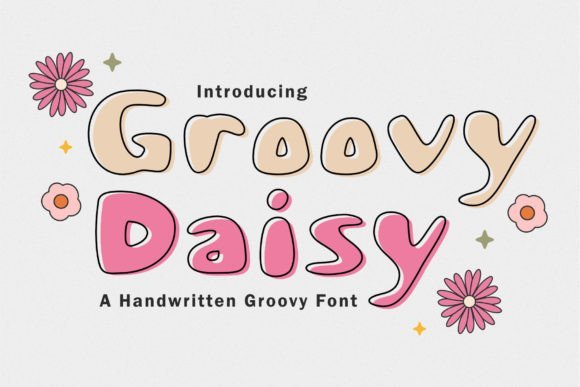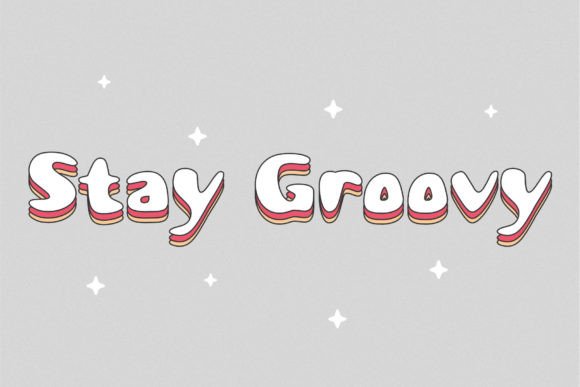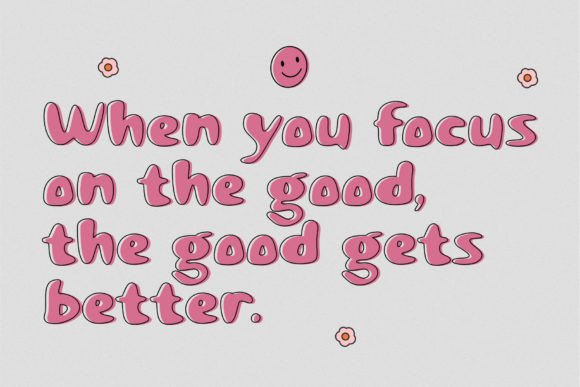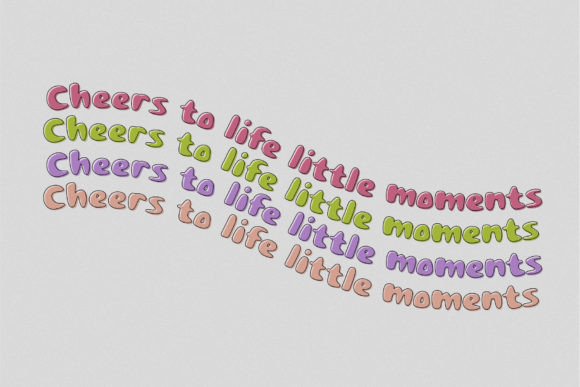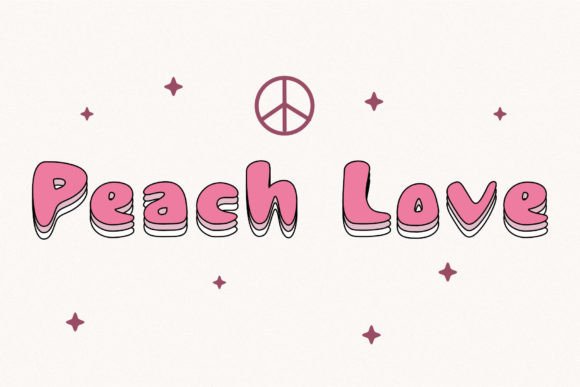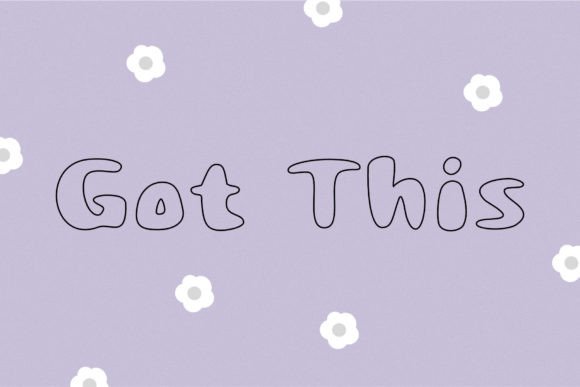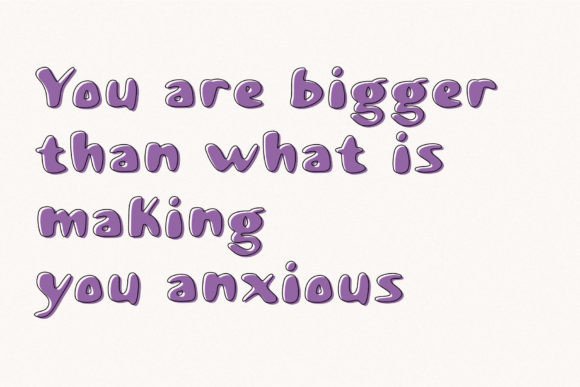
Get Ready to Groove with Groovy Daisy Font
You know that feeling when you stumble upon the perfect font to bring your creative project to life? It’s like the whole design world comes together in perfect harmony. That’s exactly what happened when I discovered the Groovy Daisy Font – a fun and playful display font with a retro style that’s sure to transport you back in time.
This fabulous font is designed to add a touch of whimsy to any design, making it perfect for vintage-themed concepts, illustration posters, stickers, and more. With its carefree spirit and nostalgic charm, the Groovy Daisy Font is a valuable addition to any designer’s toolkit.
Groovy Daisy Font Key Features
- Unique Characteristics: The Groovy Daisy Font features a unique, hand-drawn design with a playful and whimsical feel, making it perfect for adding a touch of personality to designs.
- Script and Language Support: The font includes support for a wide range of languages, including Latin, Greek, and Cyrillic scripts, making it a versatile choice for international designs.
- Customizability: The font includes a range of OpenType features, such as ligatures and swashes, allowing designers to add a high level of customization and flair to their designs.
Groovy Daisy Font Review
Overall, I think the Groovy Daisy Font has some great qualities, but it’s not without its flaws.
The font’s playful and whimsical feel is sure to capture the attention of anyone looking for a fun, carefree vibe.
The letterforms are well-crafted, with a clear and readable structure that makes it easy to understand the text.
- The font’s unique, hand-drawn aesthetic adds a touch of personality to any design project.
- The range of weights and styles available provides plenty of flexibility for designers to experiment and find the perfect fit for their project.
One of the main drawbacks of the Groovy Daisy Font is its limited legibility at smaller font sizes.
The font’s playful feel can sometimes come across as childish or immature, which may not be suitable for all design projects.
- The font may not be the best choice for body text or large blocks of text, where readability is a top priority.
- The font’s unique aesthetic may not appeal to everyone, and some designers may find it too gimmicky or over-the-top.
The Groovy Daisy Font is a fun and playful addition to any designer’s toolkit, but it’s not a one-size-fits-all solution.
It’s perfect for projects that require a lighthearted, carefree vibe, but may not be the best choice for more serious or professional designs.
Tip: Use Groovy Daisy Font for creative projects such as invitations, posters, and social media graphics.
Tip: Use Groovy Daisy Font for illustrations, logos, and branding materials.
Tip: Use Groovy Daisy Font for presentations, reports, and documents that require a creative touch.
Some common use cases for Groovy Daisy Font include:
- Creative projects such as invitations and posters.
- Illustrations and logos for branding materials.
- Presentations and reports that require a creative touch.
Can I customize the Groovy Daisy Font to fit my specific design needs?
Yes, the Groovy Daisy Font is designed to be highly customizable. You can use font editing software or design applications to modify the font’s characteristics, such as letter spacing, size, and color. However, please note that any modifications may affect the font’s licensing terms and conditions.